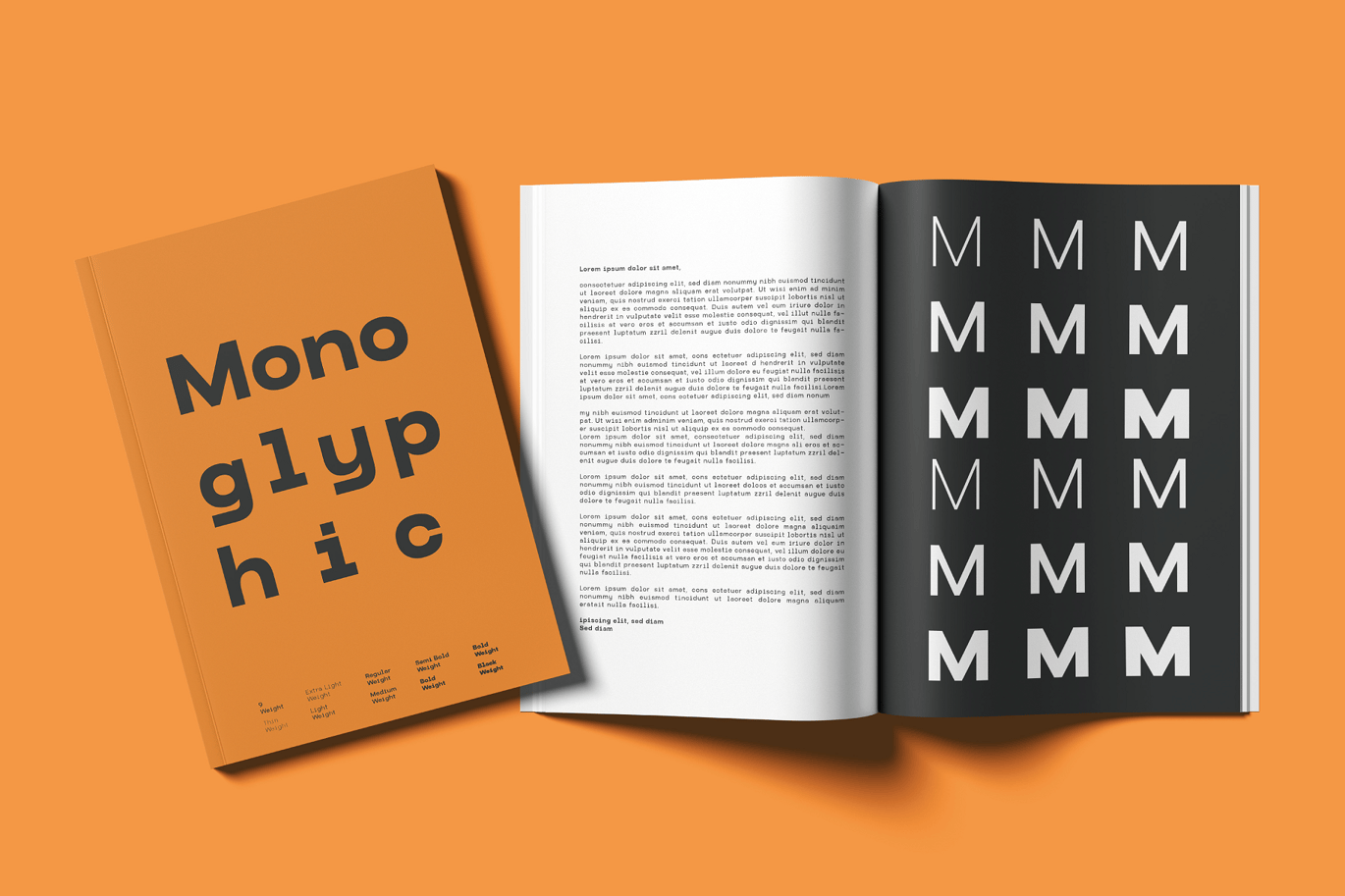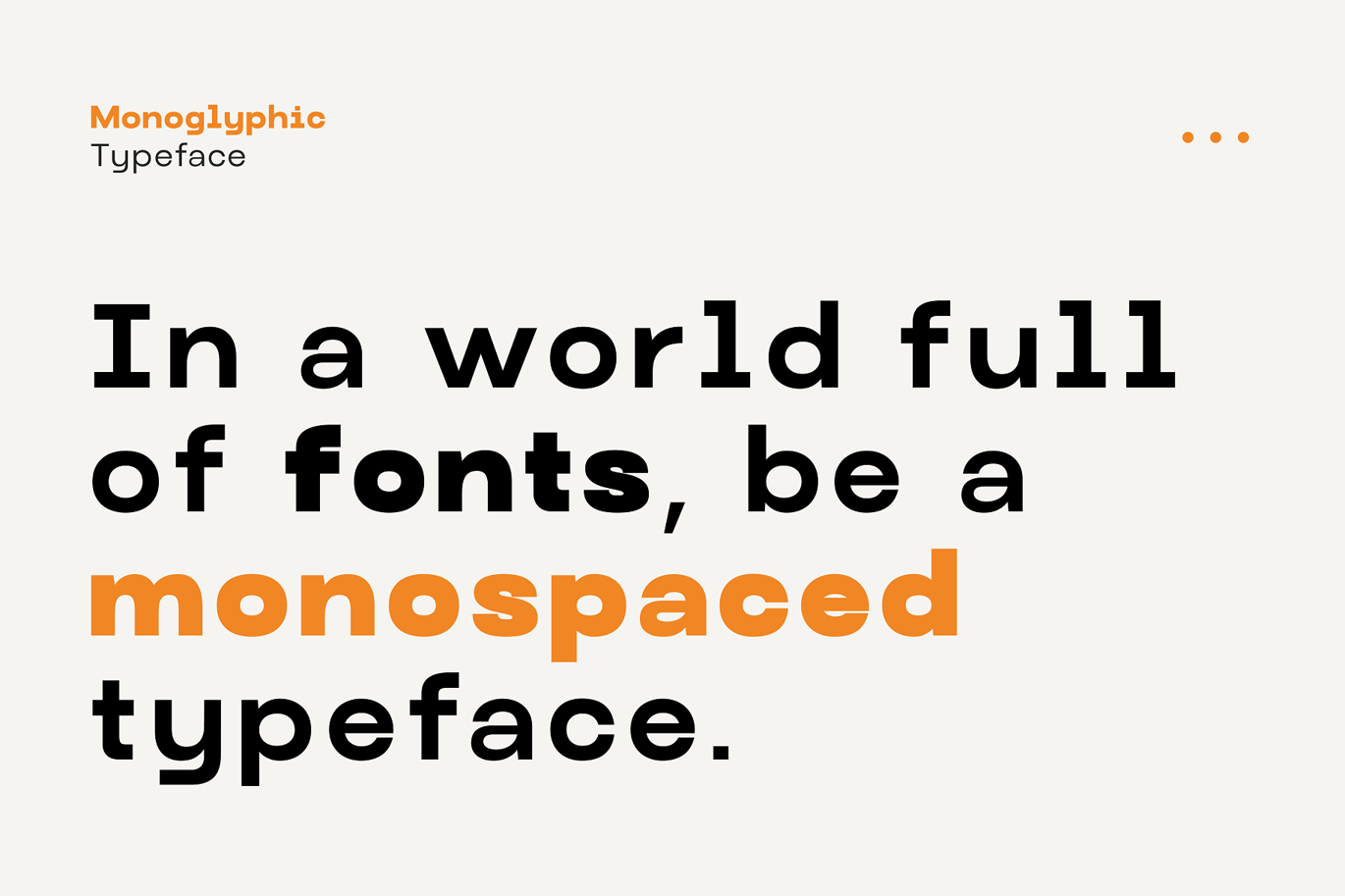
Monoglyphic – Clean Monospace Typeface Font
Monoglyphic – Clean Monospace Typeface Font is a versatile typeface ideal for various projects, including logos, branding, posters, blog headers, advertisements. The free version includes a full set of uppercase and lowercase letters, available in TTF, OTF format.